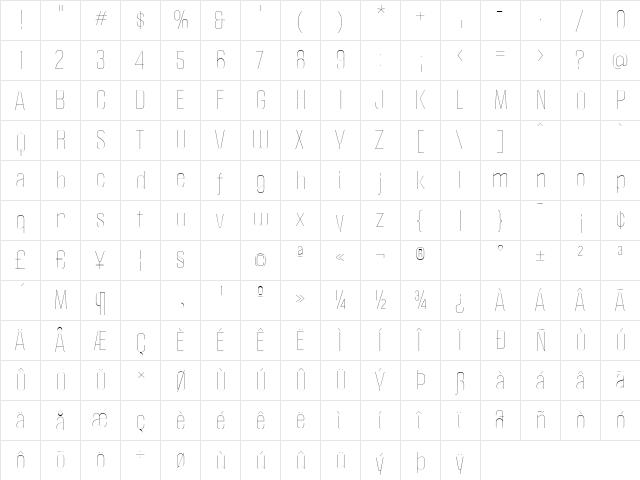
Politica Thin
| Foundry | Alejandro Paul |
| Designer | Alejandro Paul & Alfredo Graziani |
Design Context for Politica Typeface
Politica offers clean, dependable letterforms without strong stylistic allegiance, making it a practical choice for designers who need flexibility. Its slender proportions lend an understated elegance to any composition.